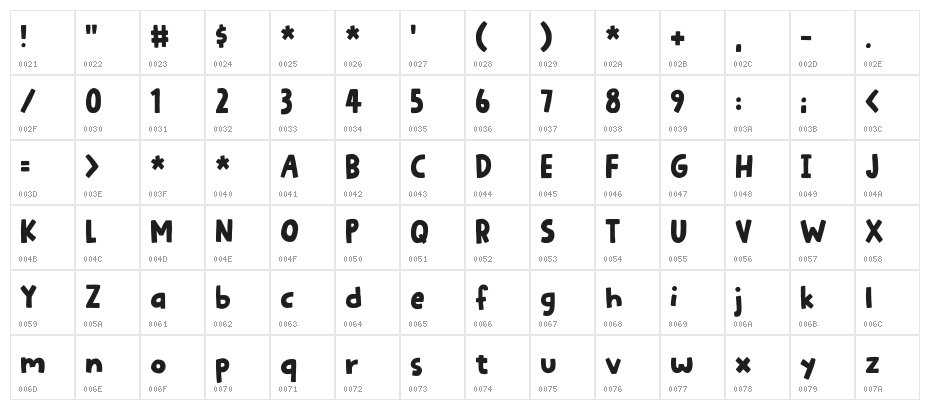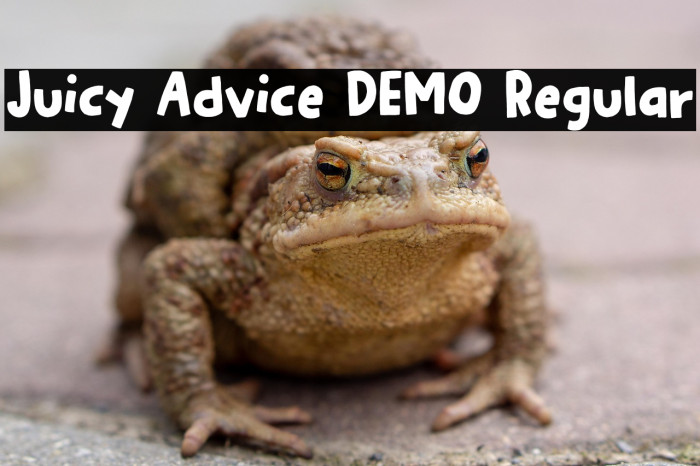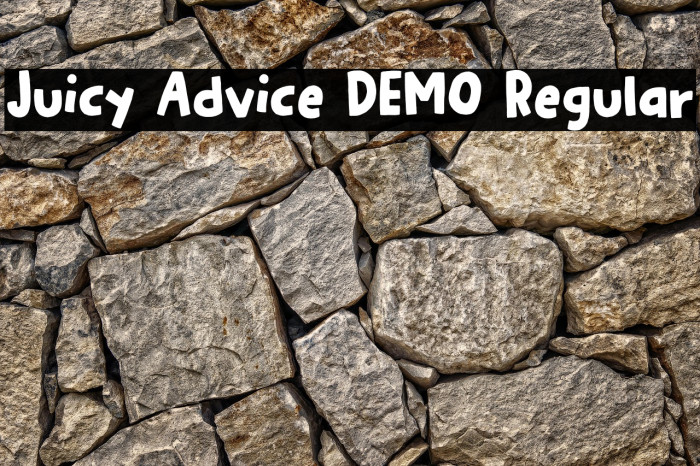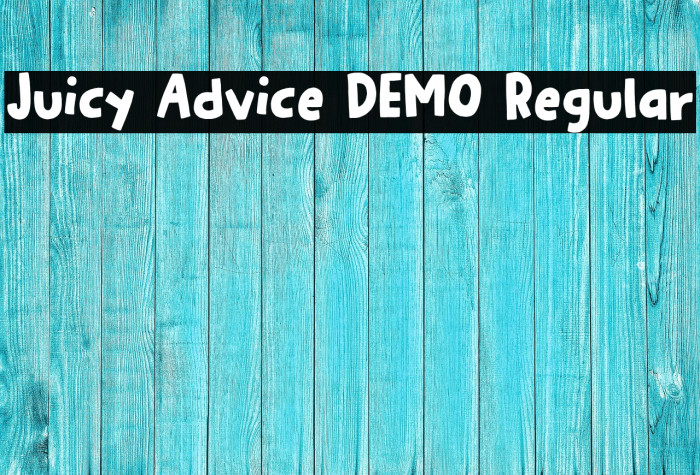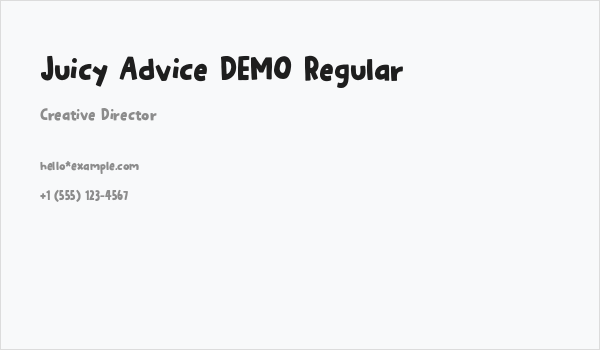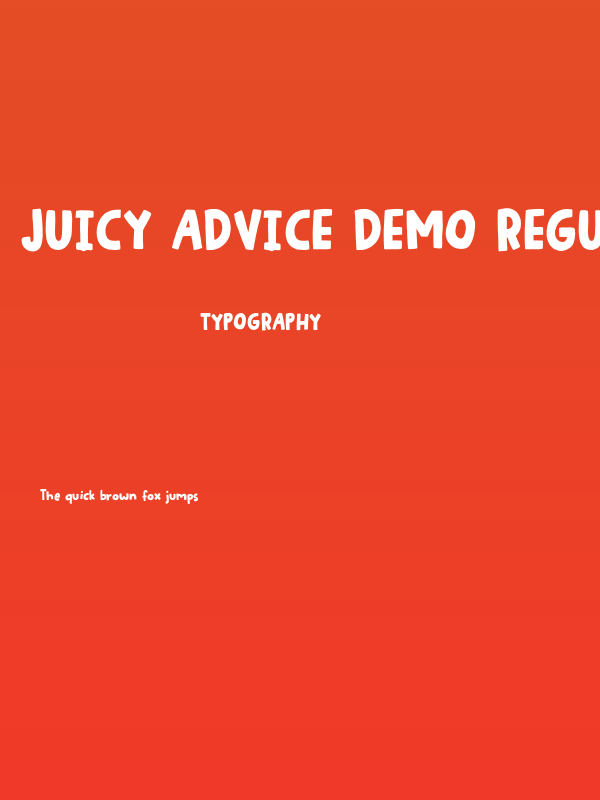
Juicy Advice DEMO Regular Font
Juicy Advice DEMO Regular Description
This font features a playful and bold design, characterized by its thick, rounded strokes and slightly irregular shapes that give it a hand-drawn appearance. The uppercase and lowercase letters maintain a consistent weight, contributing to its bold presence. The numbers and special characters follow the same playful style, making the font suitable for creative and informal applications. Its unique style is eye-catching and adds a touch of whimsy to any project.
| Proposed Projects | Ideal for children's books, playful branding, posters, and creative social media graphics. |